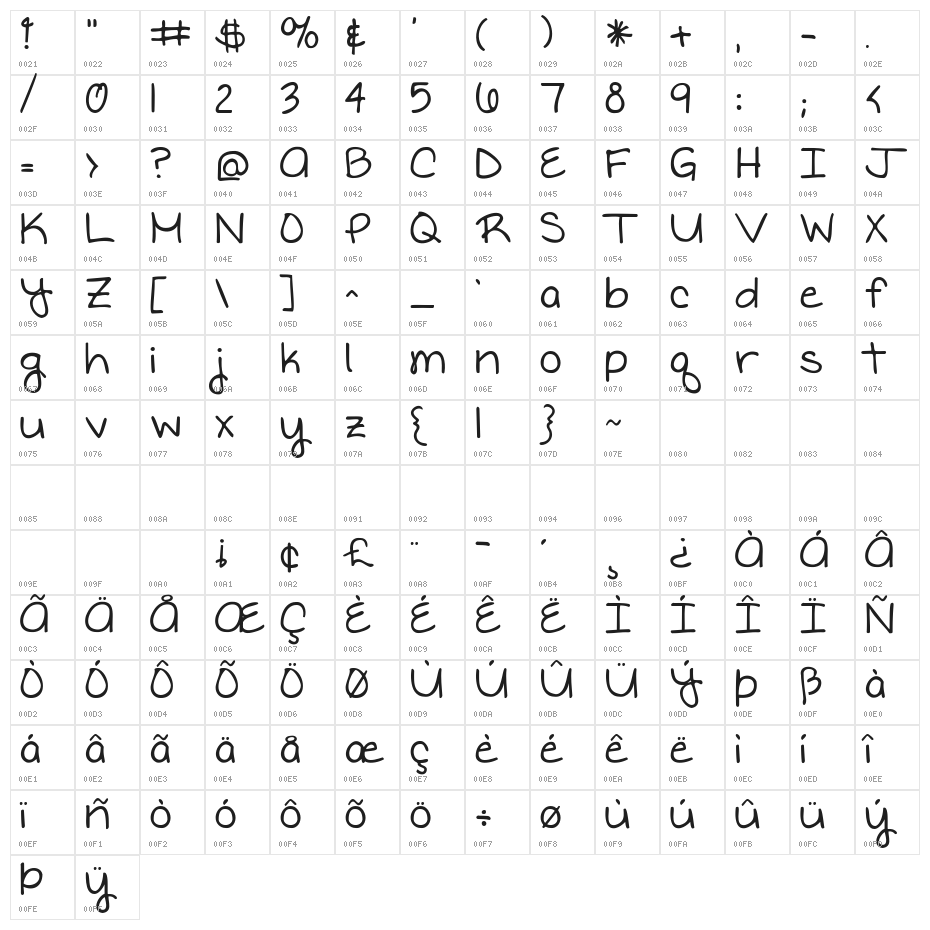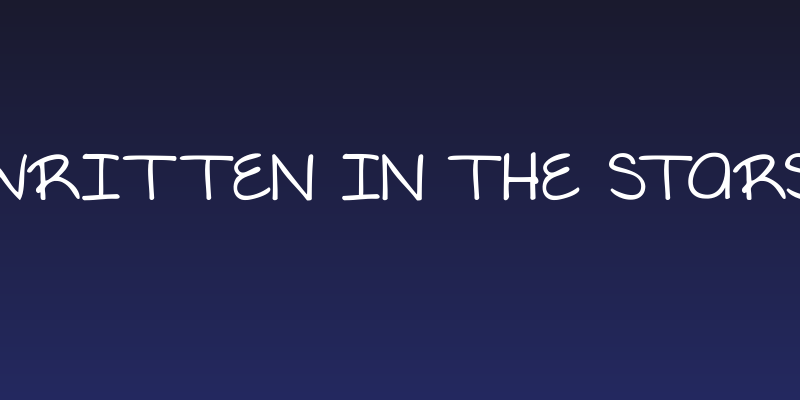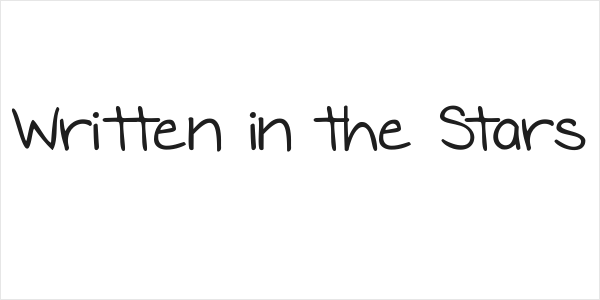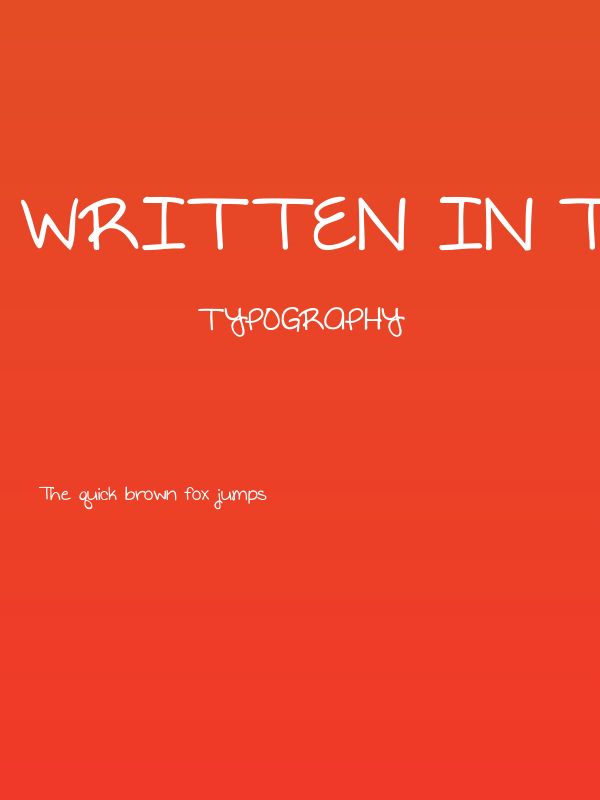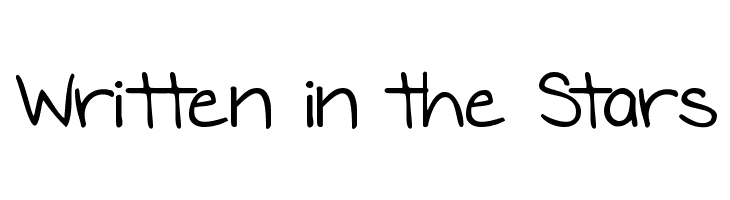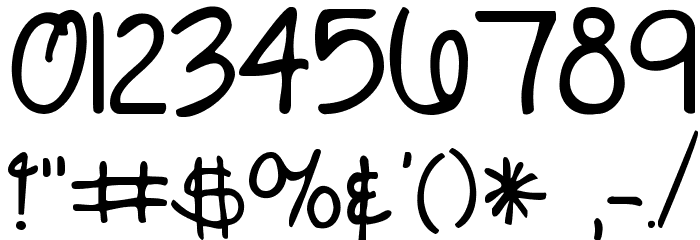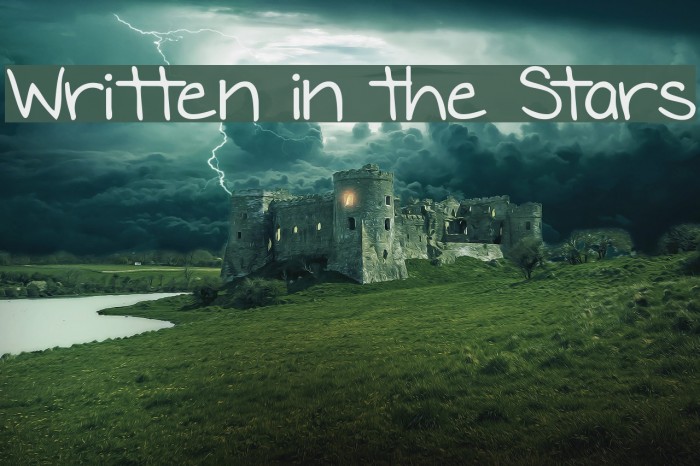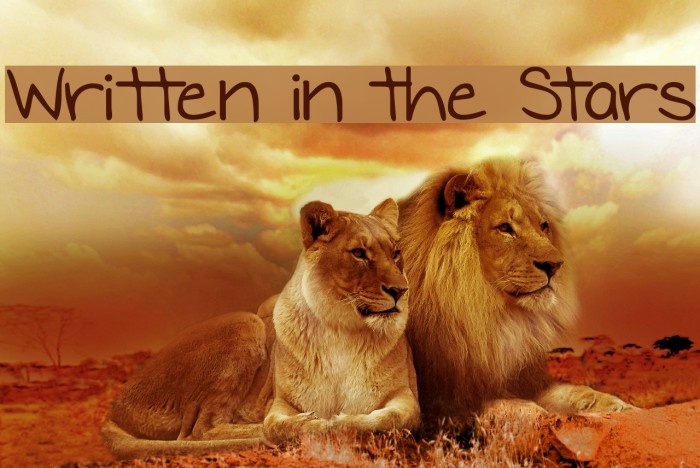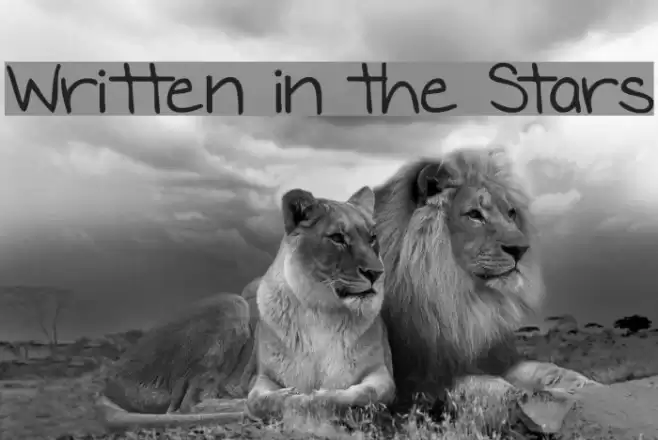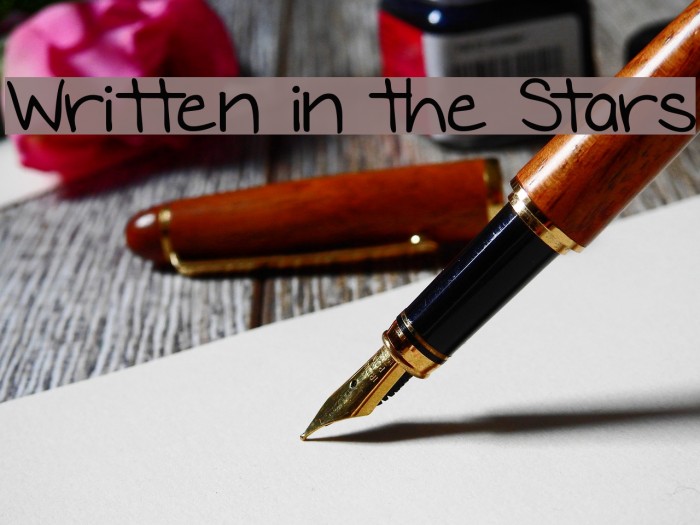
Written in the Stars Font
This playful and whimsical font features a handwritten style with smooth, rounded edges and a casual, friendly appearance. The letters are slightly irregular, giving it a personal and approachable feel. The uppercase and lowercase characters maintain a consistent style, with a slight slant that adds to its informal charm. The numerals and special characters are equally playful, fitting seamlessly with the overall aesthetic. This font is perfect for projects that require a touch of personality and creativity.
| Use Case | Greeting cards, Children's books, Creative branding |
| Proposed Projects | Ideal for greeting cards, children's books, playful branding, and creative social media graphics. |